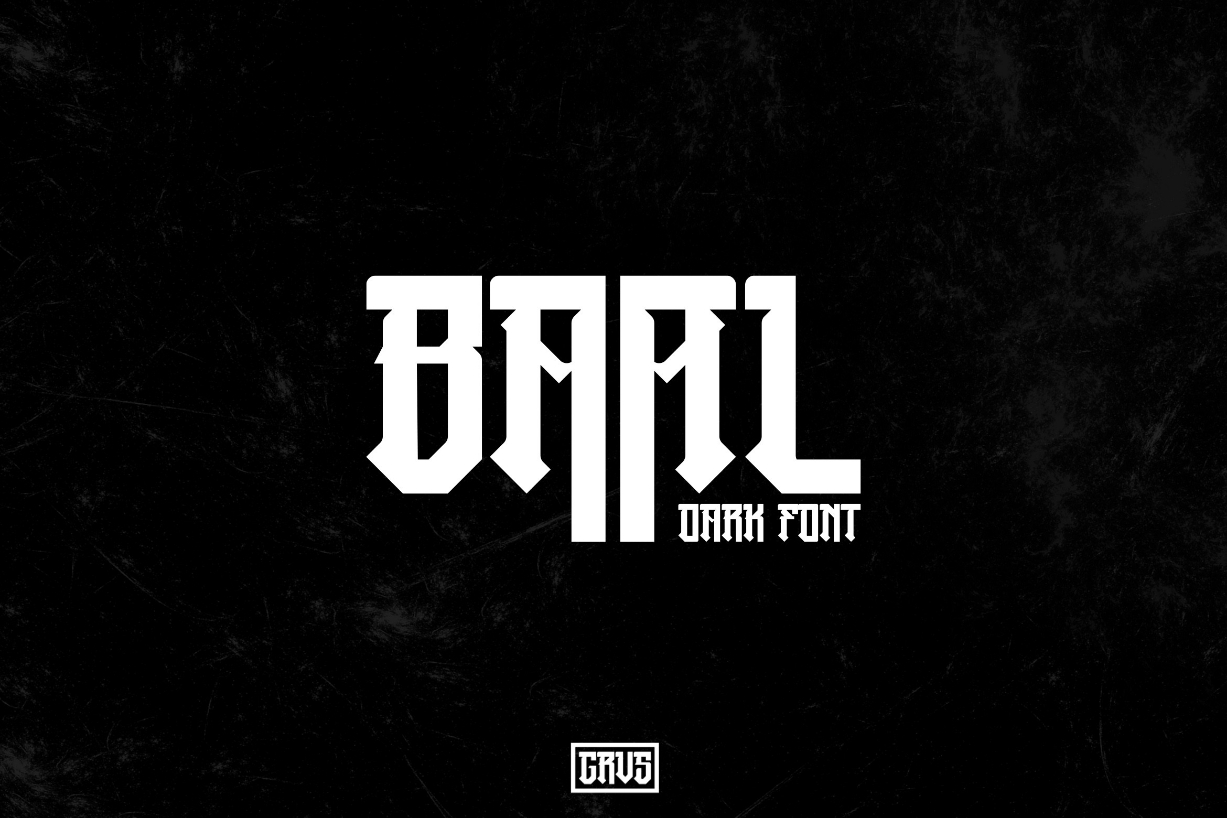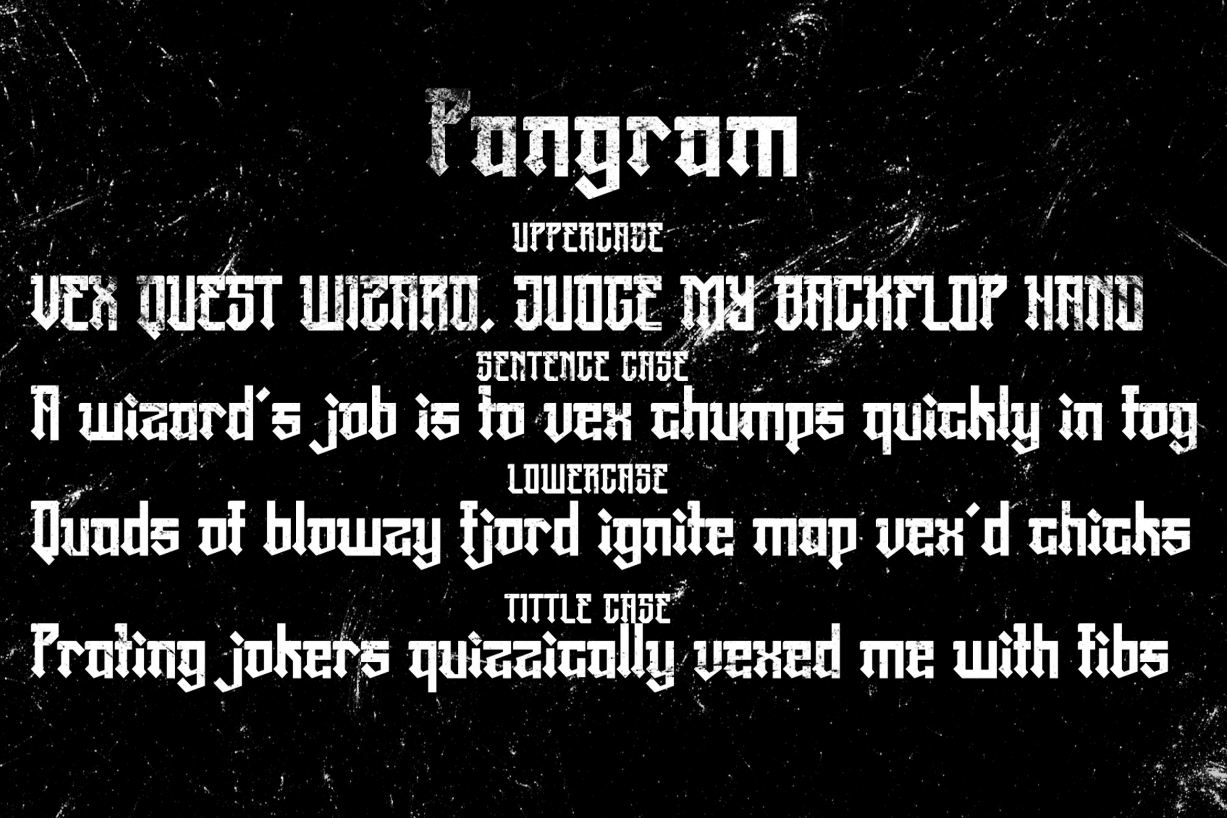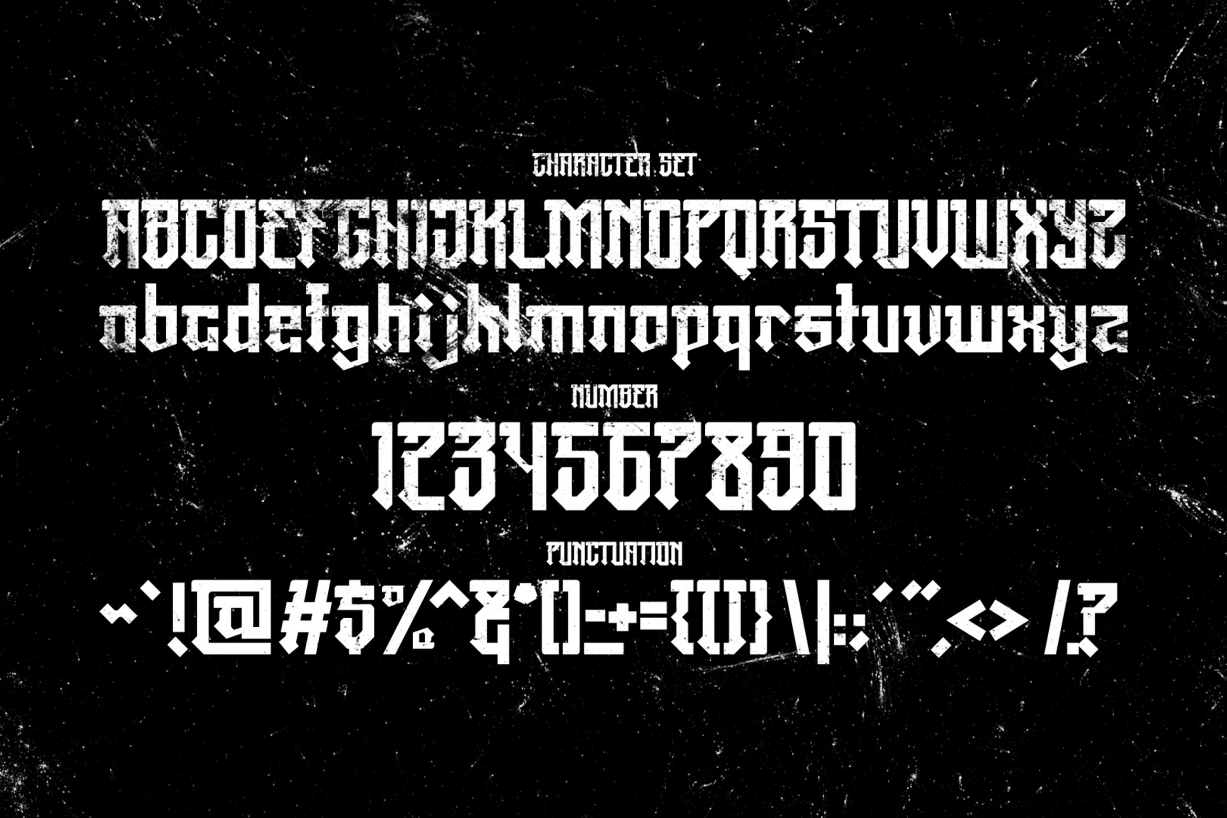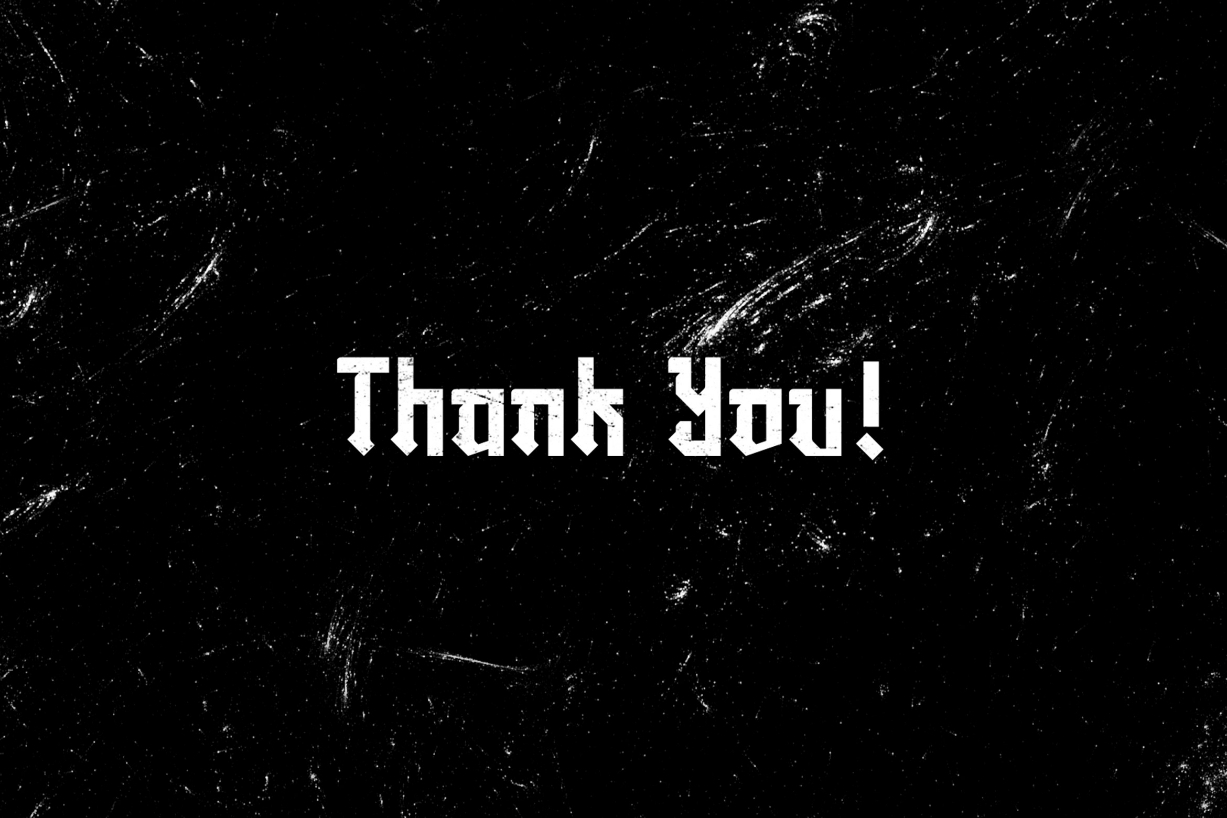
Ba Al Font
About Ba Al Font
GRVS Ba al Font is our new item that is suitable for your team logo, or community logo with a Dark theme.
Great for Logo, Sticker, Jersey, Invitation Card, Brochures, etc.